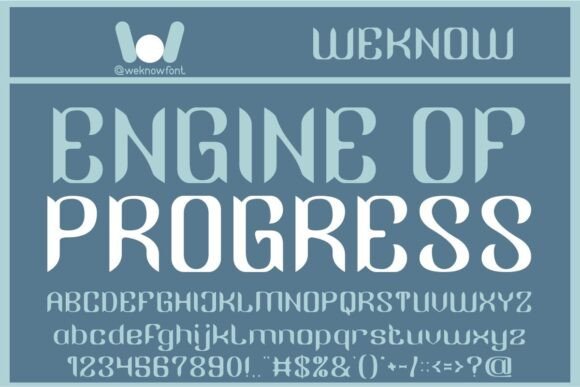
Engine of Progress Font: A Powerful Display Font for Modern Design
In the realm of typography, few fonts have made a lasting impact like Engine of Progress. This bold and striking display font has been making waves in the design community, and for good reason. With its unique blend of contemporary finesse and razor-sharp precision, Engine of Progress stands tall as a versatile and powerful tool for designers looking to make a statement.
The Versatility of Engine of Progress
One of the standout features of Engine of Progress is its versatility. This font is perfectly suited for a wide range of applications, from high-impact headlines to corporate and brand identities. Its bold and confident design makes it an excellent choice for the apparel industry, where typographic elegance is paramount. Whether you’re designing a logo, brochure, or website for a fashion brand, Engine of Progress is the perfect choice.
But Engine of Progress isn’t limited to the world of fashion. Its visual resonance extends far beyond, making it an excellent choice for a wide range of industries and applications. From music and gaming to film and comics, this font has the power to bring your story to life.
Music and Entertainment
In the world of music, Engine of Progress is the perfect choice for artists and producers looking to make a statement. Whether you’re designing a poster for a concert, creating a social media campaign for a new album release, or simply looking for a font to use on your artist’s website, Engine of Progress has the power to capture the energy and excitement of the music industry.
Similarly, in the world of gaming, Engine of Progress is an excellent choice for game developers and designers looking to create a bold and dynamic visual identity. From game logos to website headers, this font has the power to convey the adrenaline rush and excitement of the gaming experience.
Film and Comics
In the world of film and comics, Engine of Progress is an excellent choice for designers looking to create a bold and eye-catching visual identity. Whether you’re designing a poster for a movie or comic book, creating a website for a film production company, or simply looking for a font to use on your social media channels, Engine of Progress has the power to capture the visual dynamics and excitement of these industries.
With its bold and confident design, Engine of Progress is the perfect choice for designers looking to create a lasting impression. Whether you’re working on a film or comic book project, this font has the power to bring your story to life and engage your audience.
The Benefits of Engine of Progress
So, what sets Engine of Progress apart from other display fonts on the market? Here are just a few benefits of using this powerful font:
- Versatility: Engine of Progress is a highly versatile font that can be used in a wide range of applications, from high-impact headlines to corporate and brand identities.
- Bold and Confident Design: With its bold and confident design, Engine of Progress is the perfect choice for designers looking to make a statement.
- Typographic Elegance: This font effortlessly acts as the keystone of corporate and brand identities, confidently infusing typographic elegance into every stitch.
- Visual Resonance: Engine of Progress has a unique visual resonance that extends far beyond traditional design applications, making it an excellent choice for digital platforms like YouTube and Instagram.
Using Engine of Progress in Your Design Projects
So, how can you start using Engine of Progress in your design projects? Here are a few tips:
- Experiment with Different Sizes and Styles: Engine of Progress is a highly versatile font that can be used in a wide range of sizes and styles. Experiment with different sizes and styles to find the one that works best for your project.
- Pair with Other Fonts: Engine of Progress can be paired with other fonts to create a unique and dynamic visual identity. Experiment with different font combinations to find the one that works best for your project.
- Use in Digital and Print Applications: Engine of Progress is a highly versatile font that can be used in both digital and print applications. Use it to create a consistent visual identity across all your design projects.
The Future of Design with Engine of Progress
As we move forward in the world of design, one thing is clear: Engine of Progress is here to stay. With its bold and confident design, typographic elegance, and visual resonance, this font is the perfect choice for designers looking to make a statement.
Whether you’re working on a high-impact headline, corporate and brand identity, or simply looking for a font to use on your social media channels, Engine of Progress has the power to bring your story to life. With its versatility, bold and confident design, and typographic elegance, this font is the perfect choice for designers looking to define the era of modern design.